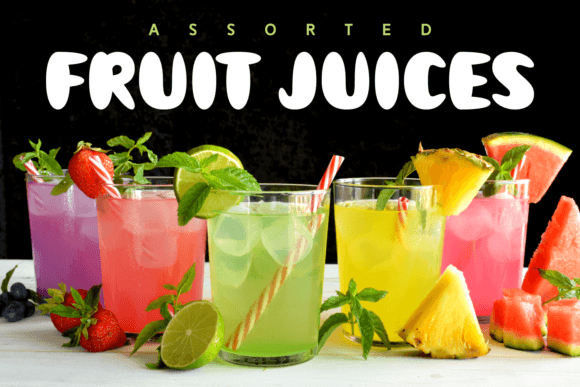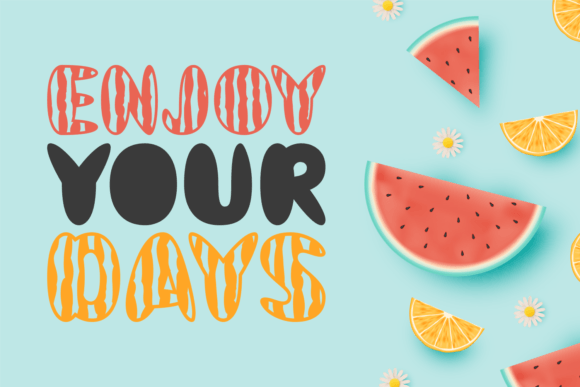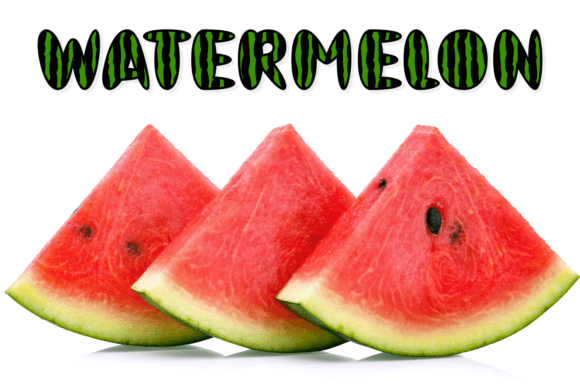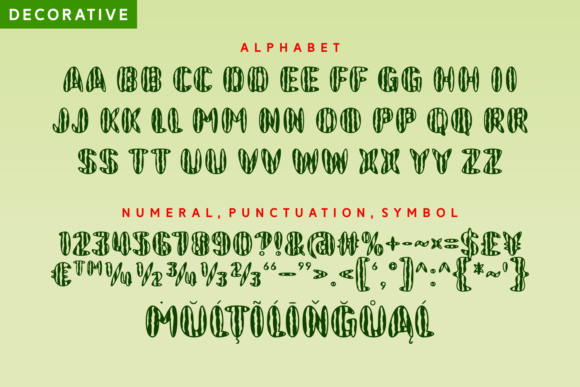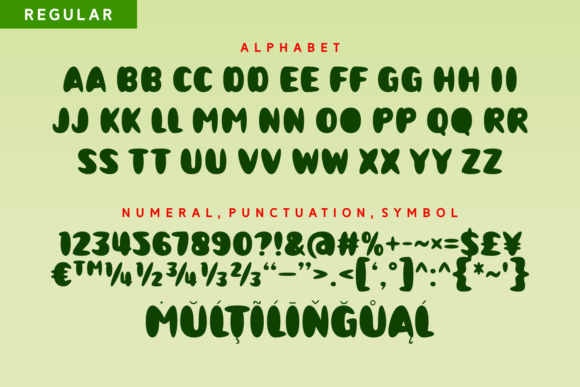
The Sweetest Typography Treat: Freshest Watermelon Font
Have you ever been brainstorming ideas for a new project and suddenly a burst of creativity hits you, like a refreshing slice of watermelon on a hot summer day? That’s exactly what the Freshest Watermelon Font is all about – sparking joy and inspiring your next creative masterpiece.
This charming duo font is perfect for designers looking to add a playful touch to their projects. Freshest Watermelon Font is a versatile and decorative display font that can elevate your book covers, farm product marketing materials, advertisements, and more. Its unique design makes it an invaluable asset for any designer looking to add a personal touch to their work.
Freshest Watermelon Font Key Features
- Font Family: Freshest Watermelon Font
- Unique Characteristic: The font features a unique blend of modern and vintage elements, with a distressed texture that gives it a fresh and hand-painted look.
Freshest Watermelon Font Review
At first glance, Freshest Watermelon Font seems like a fun, quirky addition to any design project. The unique blend of rounded shapes and soft lines ✨ creates a friendly, approachable vibe that’s perfect for summer-themed designs or kids’ content.
The font’s best features include:
- ✨ Unique and playful design that adds character to any text
- ✨ Wide range of weights and styles to suit different design needs
- ✨ High-quality rendering, even at larger font sizes
- ⚠️ Limited support for certain languages, which may restrict its use in multilingual projects
- ⚠️ Some users may find the font too ornate or distracting for certain design applications
Overall, I think Freshest Watermelon Font is a solid choice for designers looking to add a touch of whimsy to their projects. While it may not be the best fit for every design need, it’s a great option for summer-themed designs, kids’ content, or projects that require a playful, approachable tone.
Tips for Getting the Most Out of Freshest Watermelon Font
For the best results, use Freshest Watermelon Font for creative projects that require a playful, handwritten feel. Experiment with different font sizes, colors, and combinations to achieve the desired look.
Freshest Watermelon Font is ideal for:
– Party invitations and decorations
– Food and drink branding
– Handwritten-style labels and tags